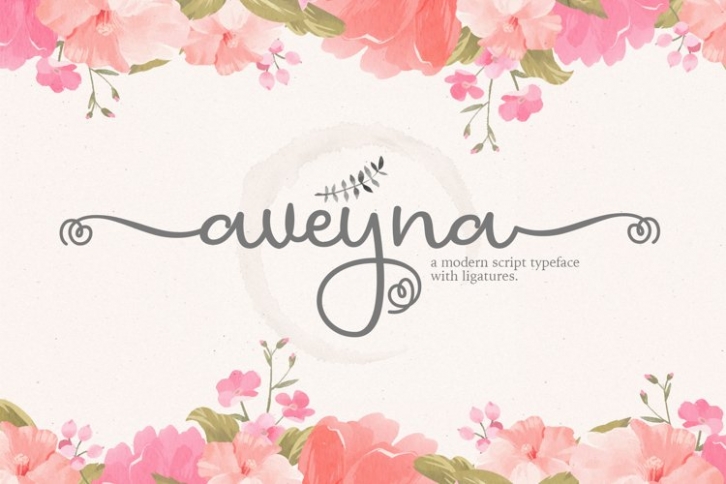
Aveyna is a gorgeous font that was realeased on October 28, 2022. The font can be used in many style contexts and design environments. Perfect for invitations, magazines, websites, logos, and more! It was designed by plusstore and the file size is 15.1 MB. Thanks for checking out this font!